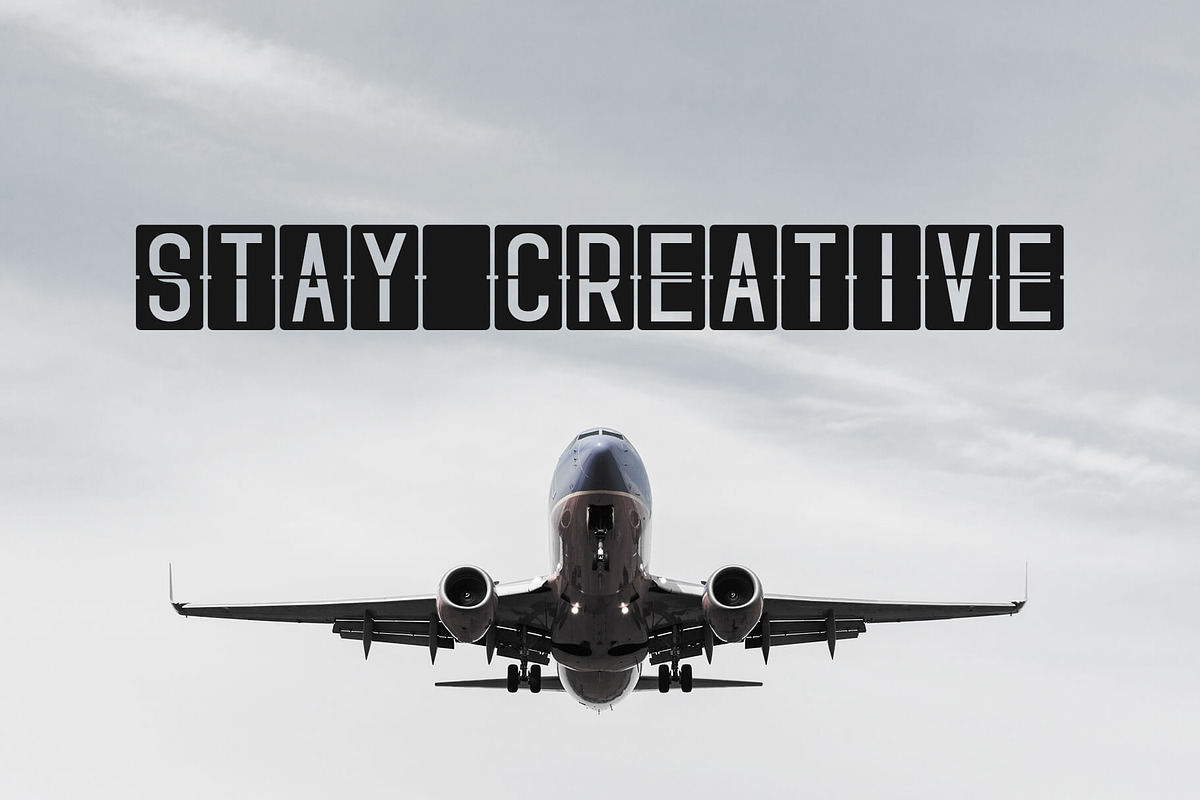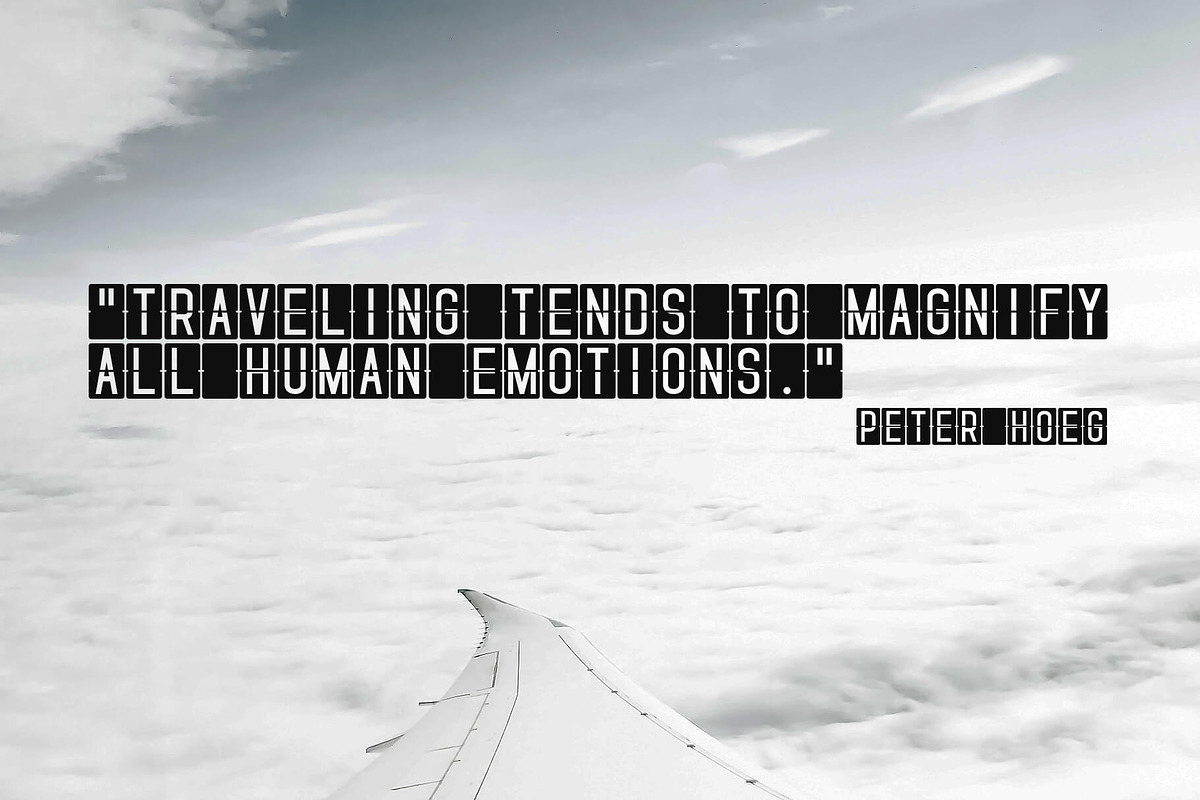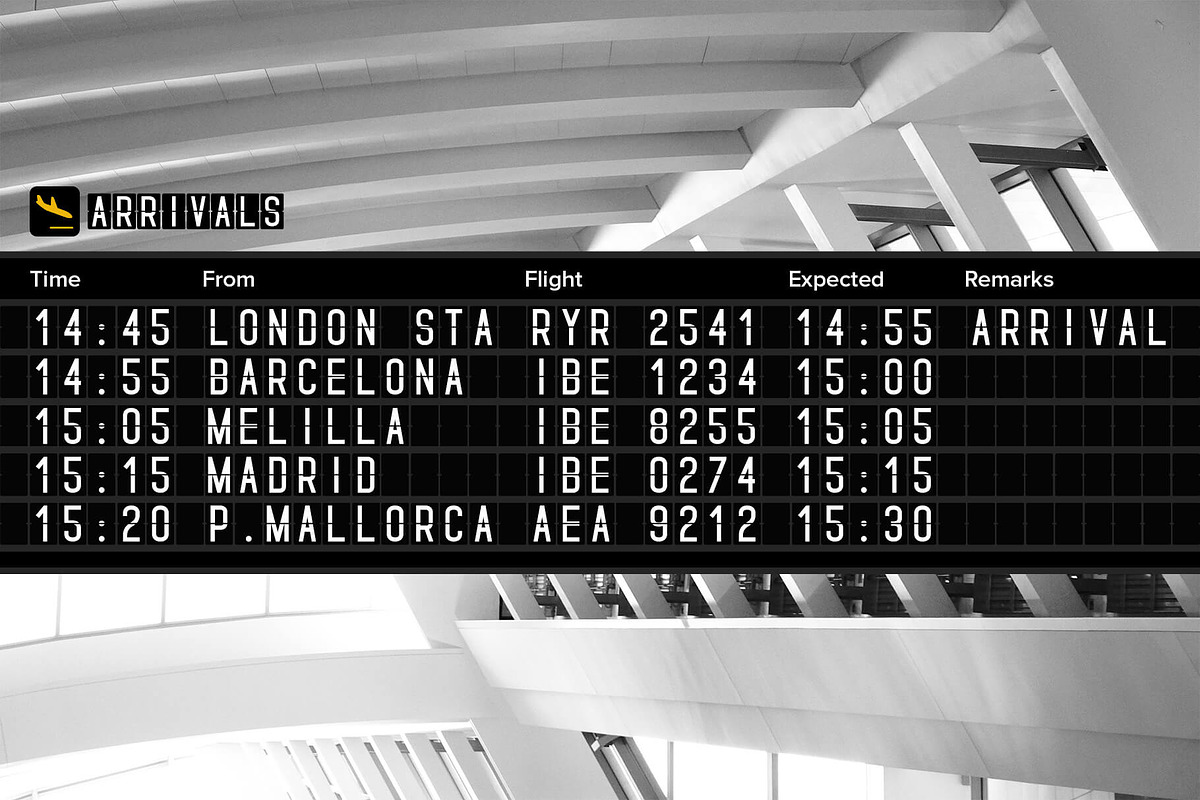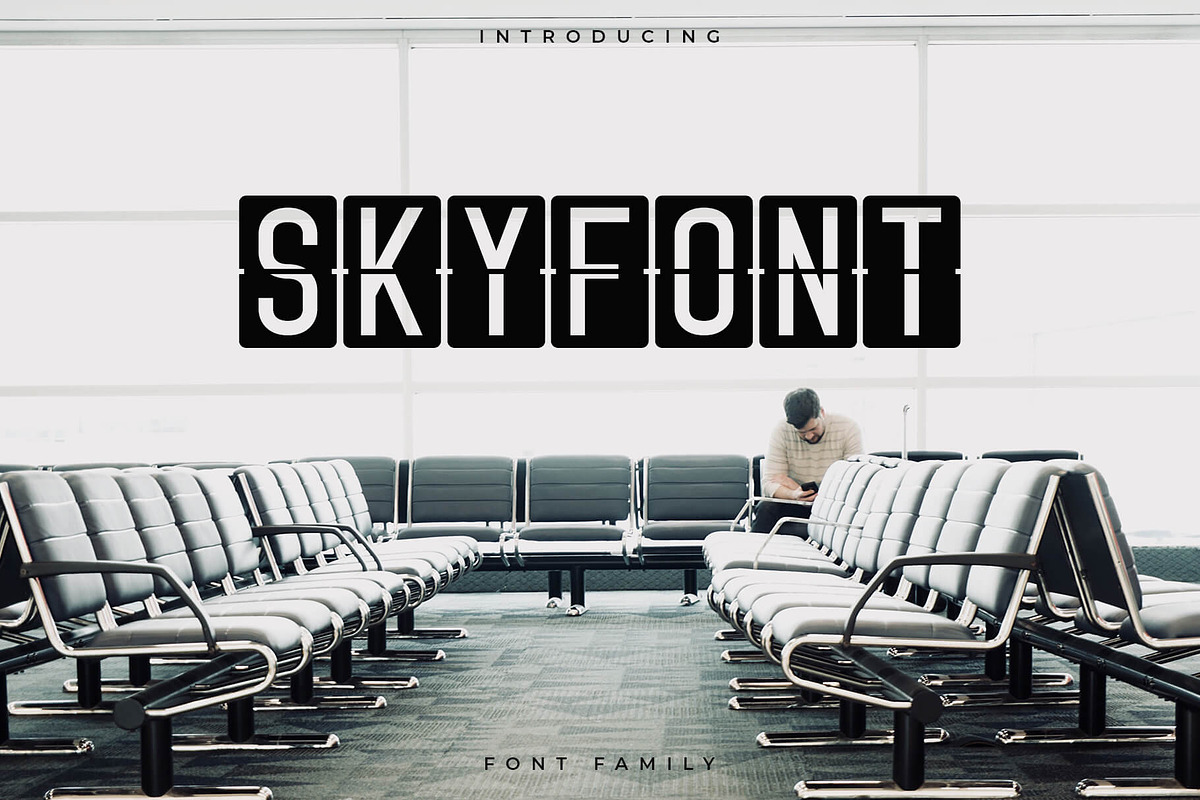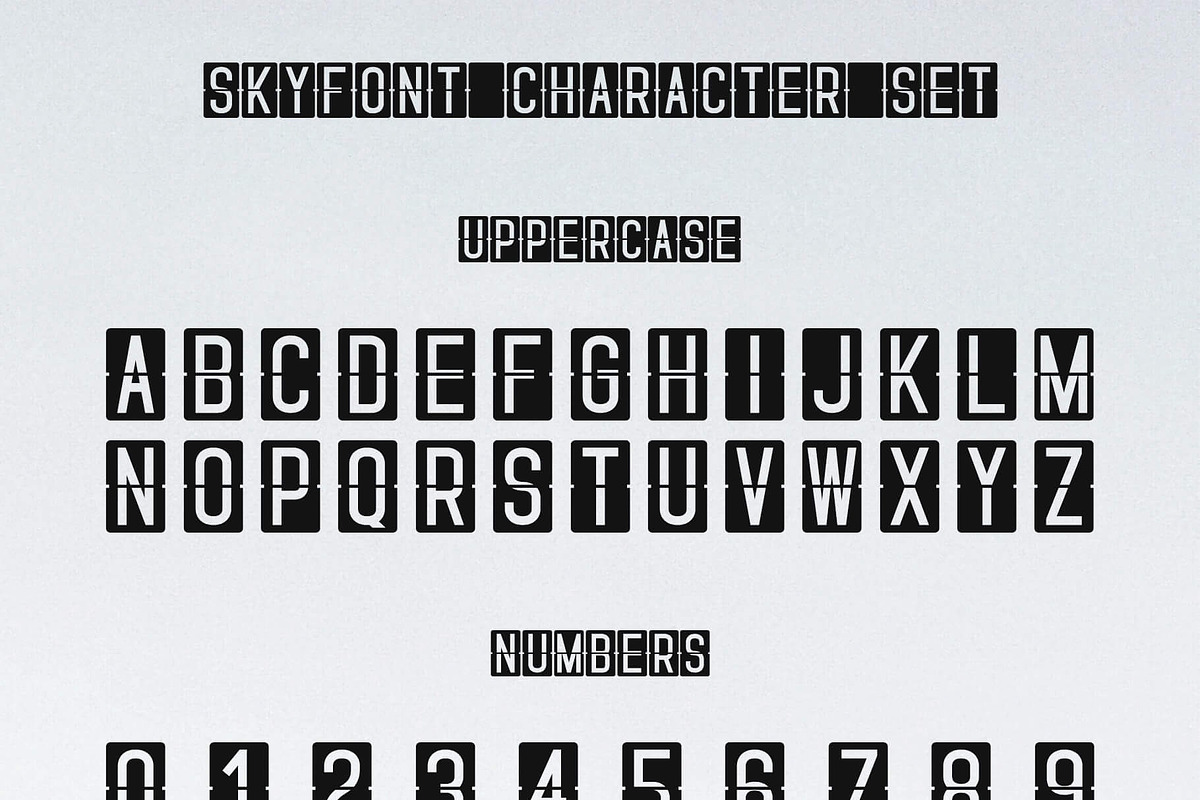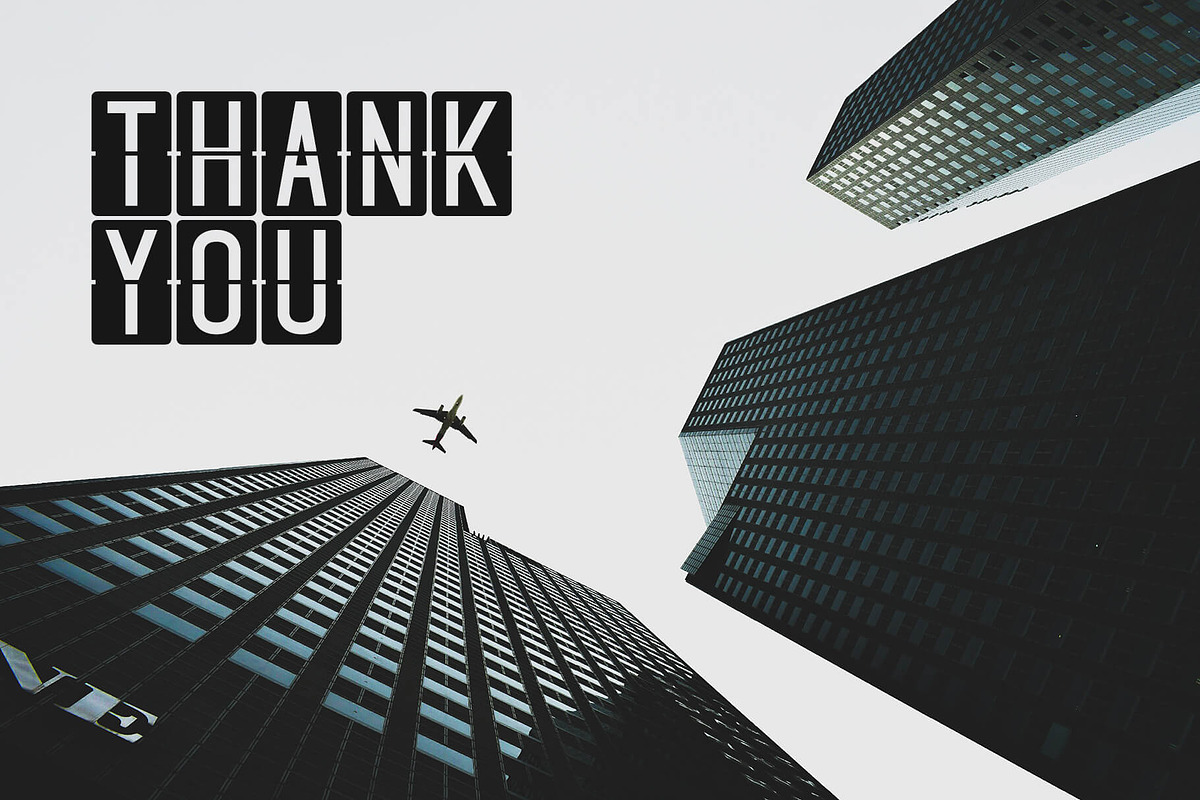
Skyfont Font Family - Sans Serif
Skyfont is a strong and clean sans serif font. It's a versatile font family designed for strong, classic branding. Skyfont works great in any branding, logos, magazines, videos, product packaging, website headers, clothing designs and much more.